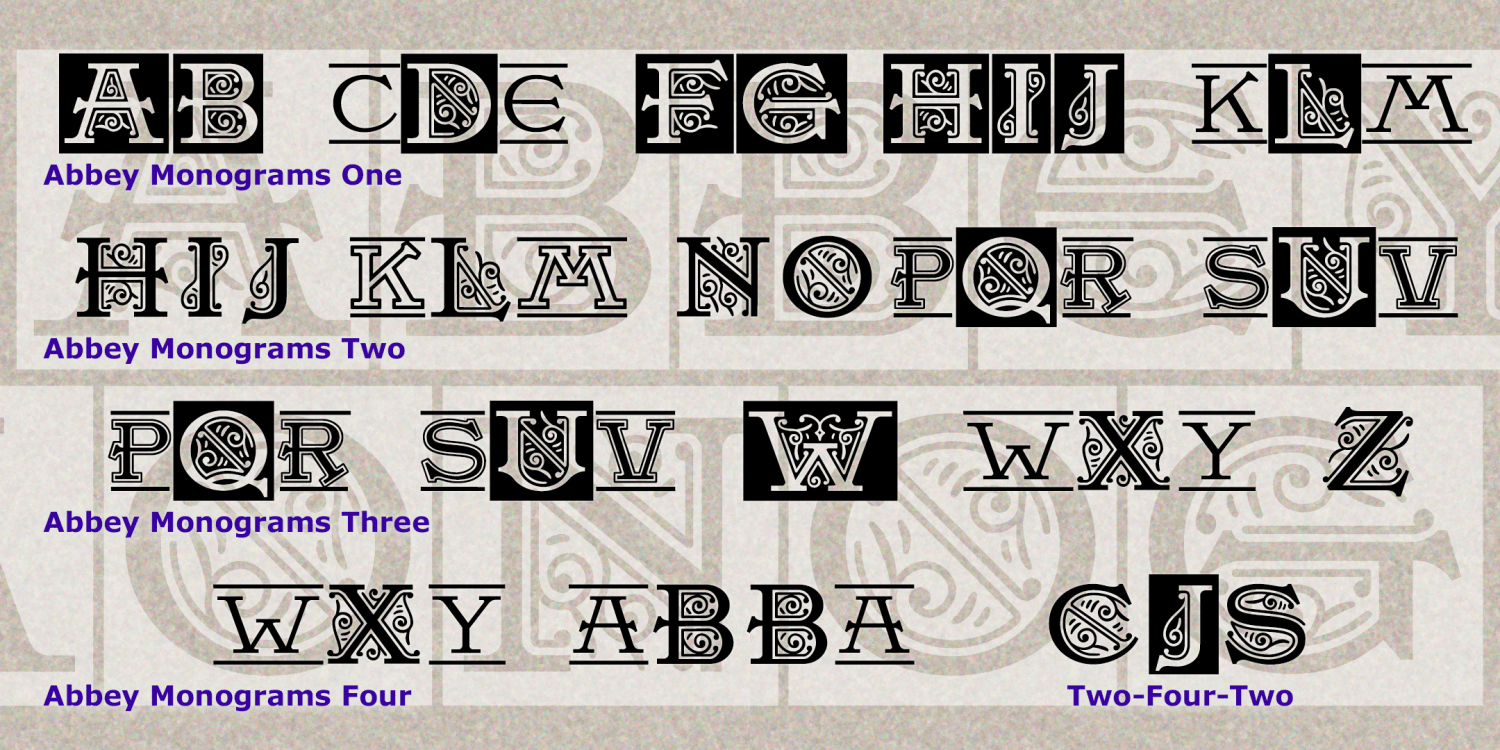
Abbey Monograms
About Abbey Monograms
ABBEY MONOGRAMS combine stately initials with graceful decoration. Inspired by vintage typography, each letter is crisply drawn and richly detailed, perfect for display at any size in any medium. Each font includes illuminated caps in the uppercase positions…